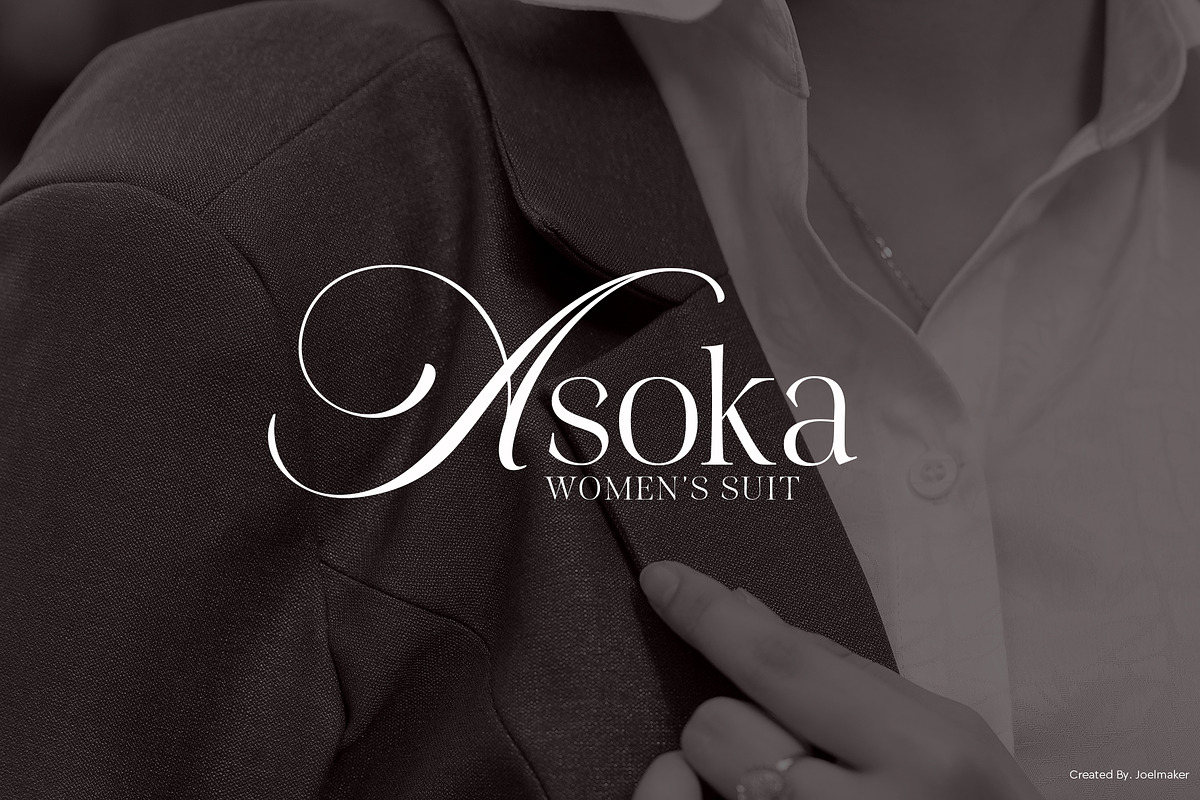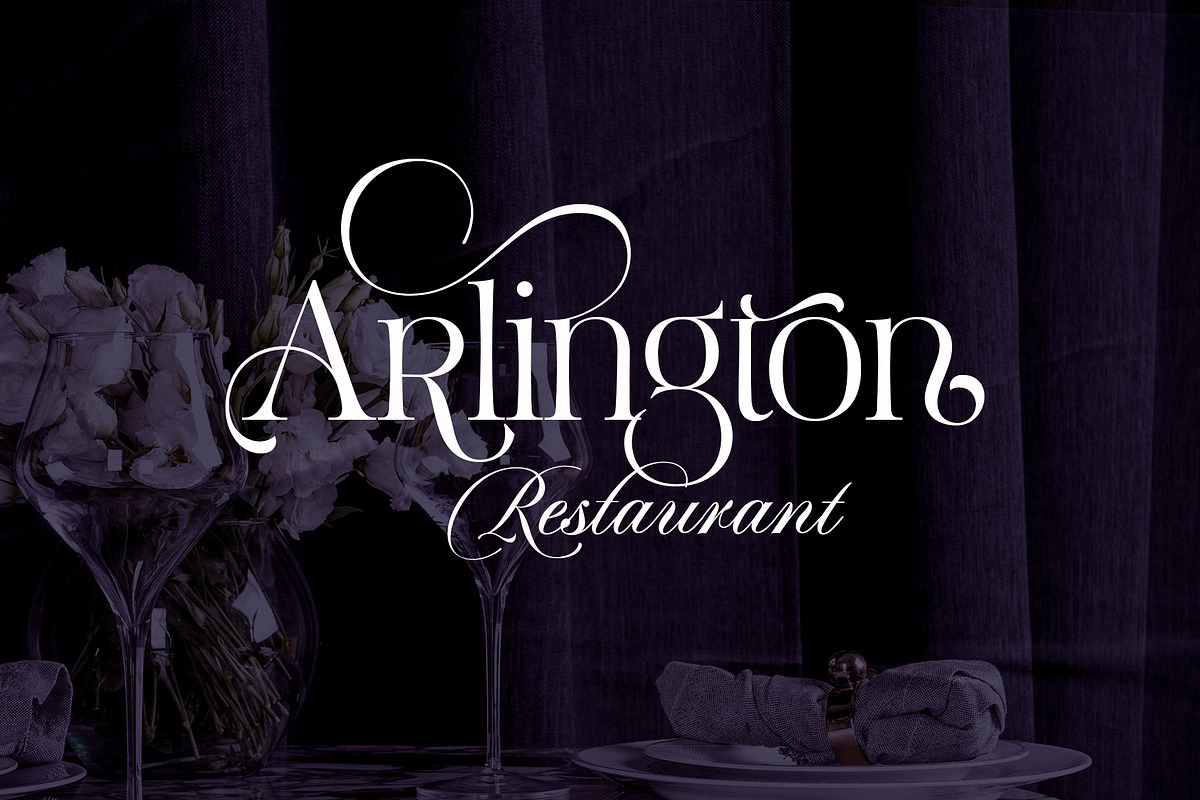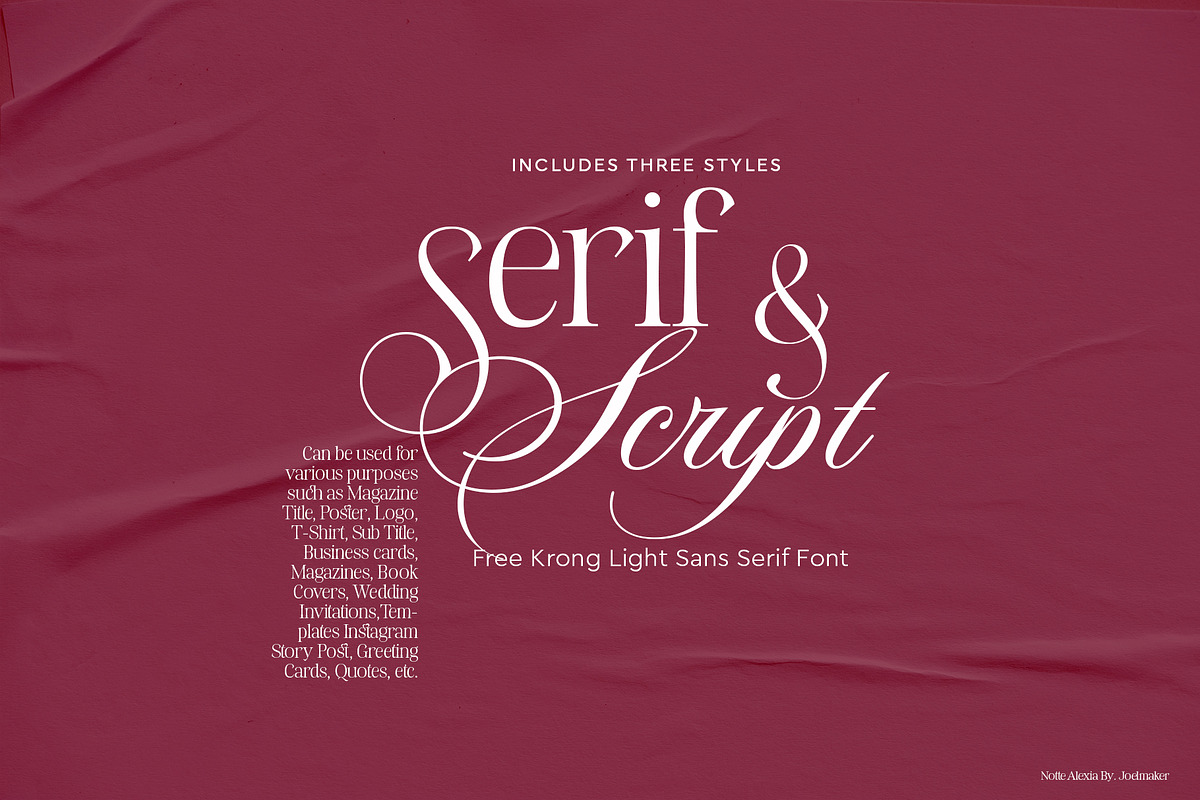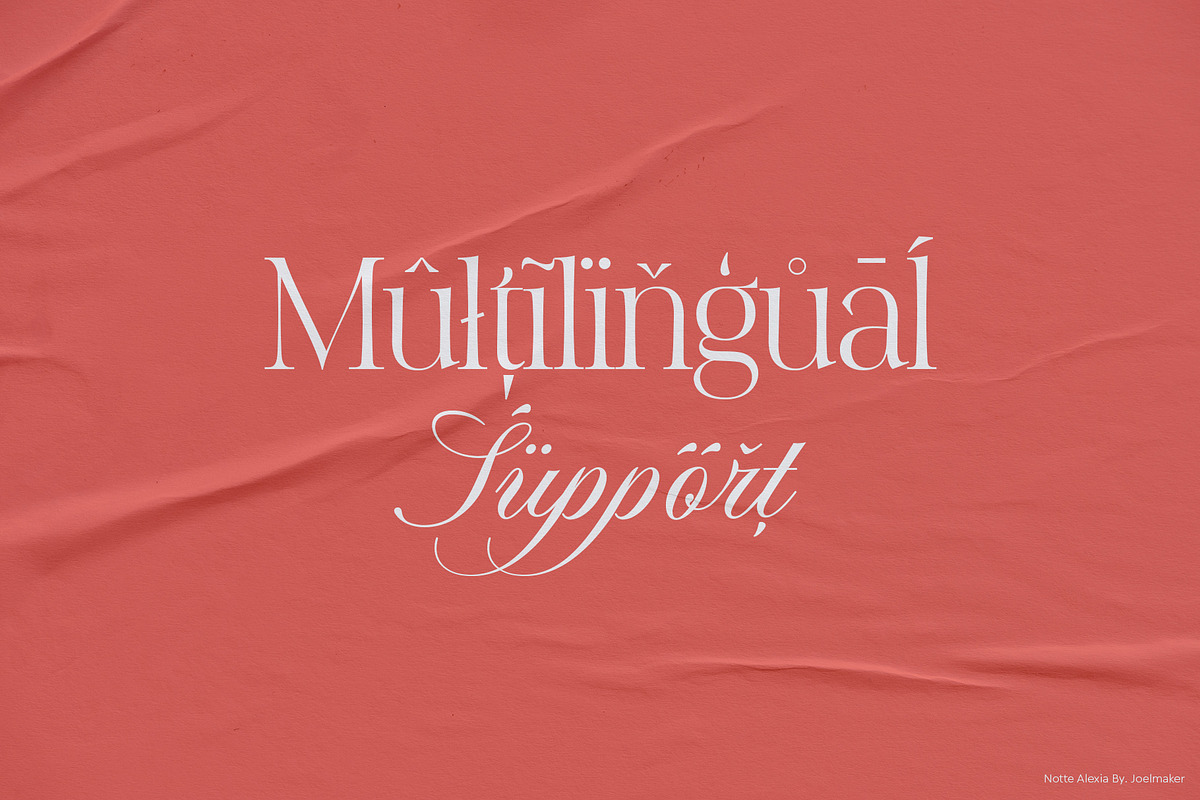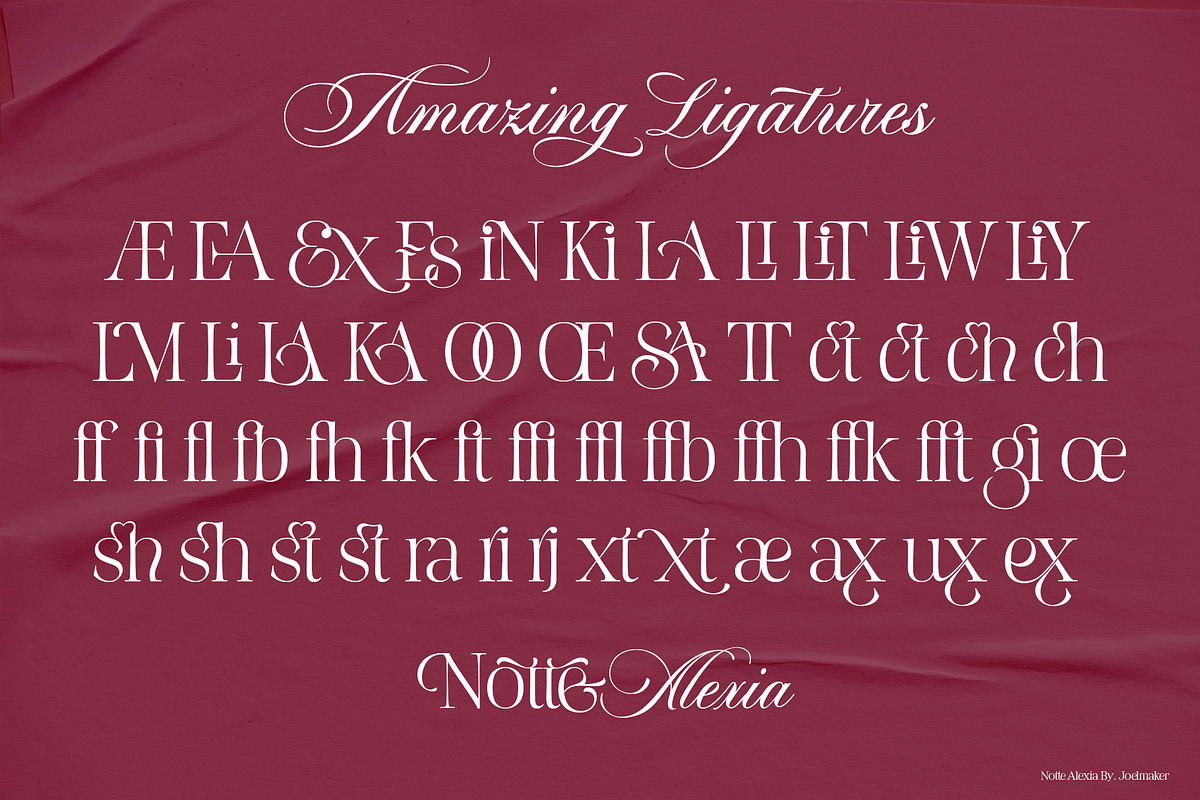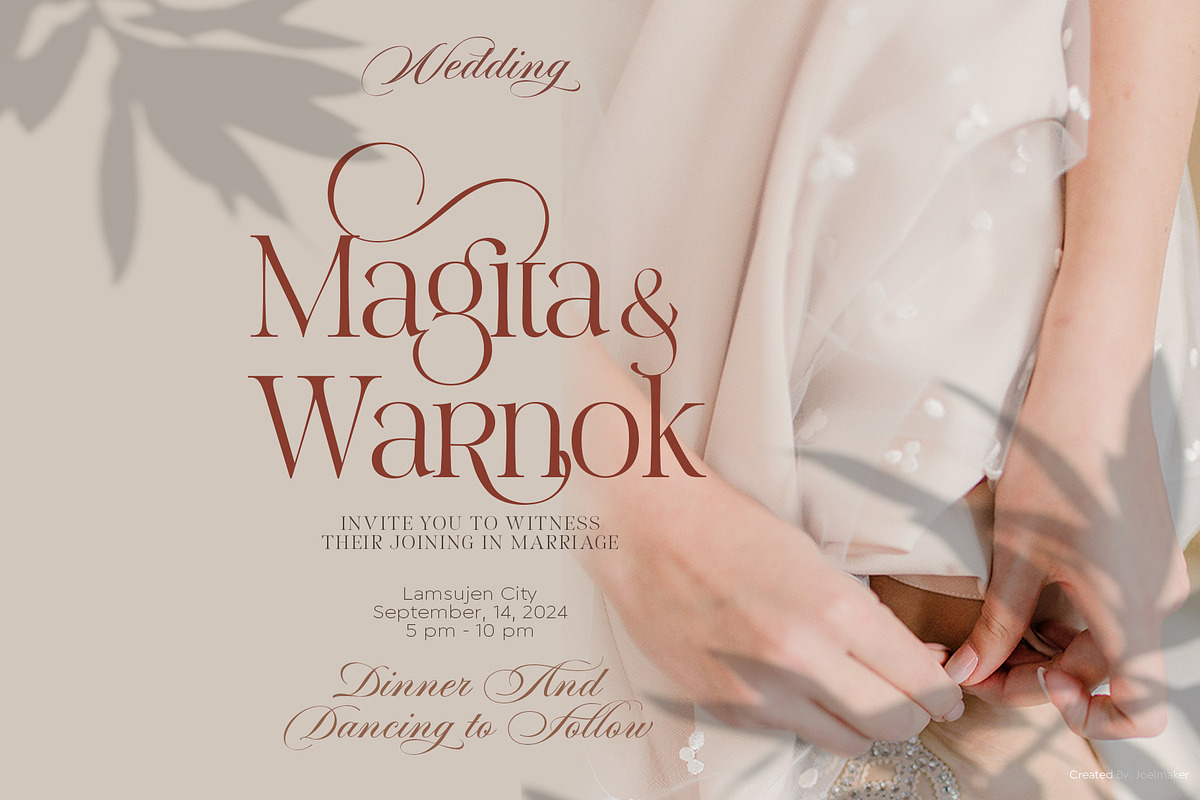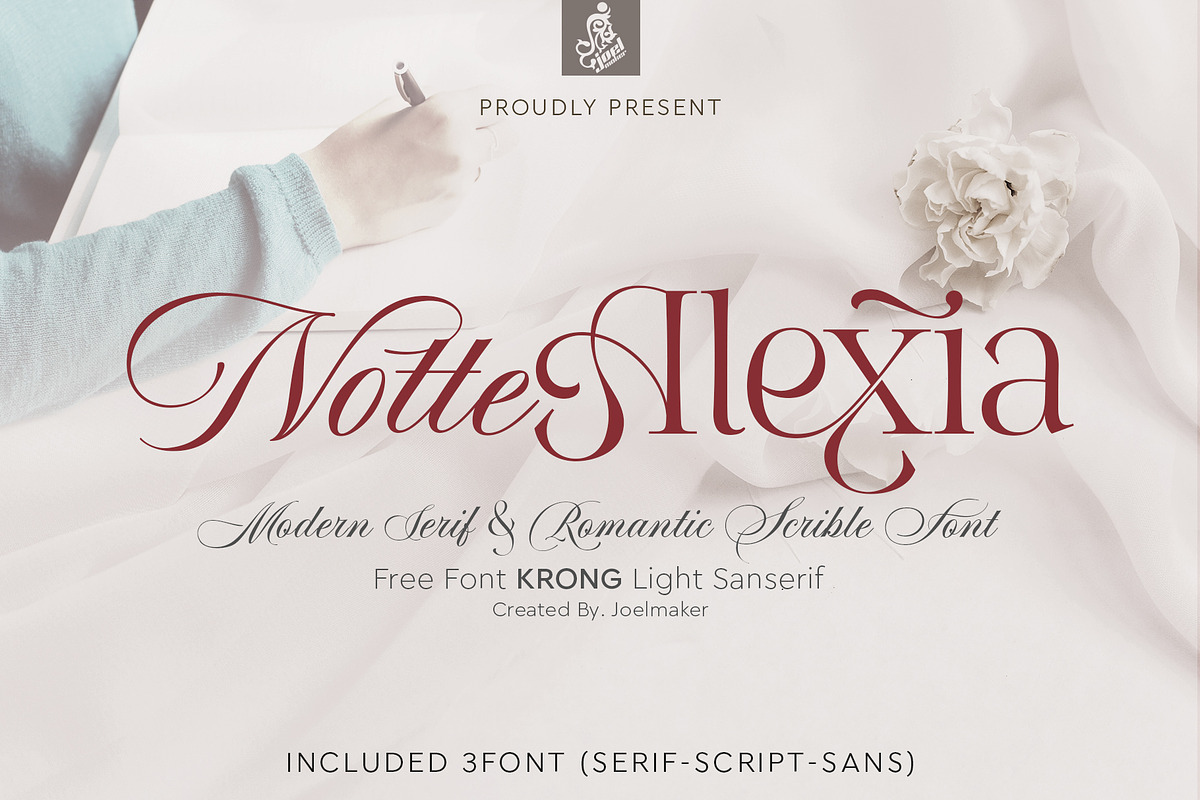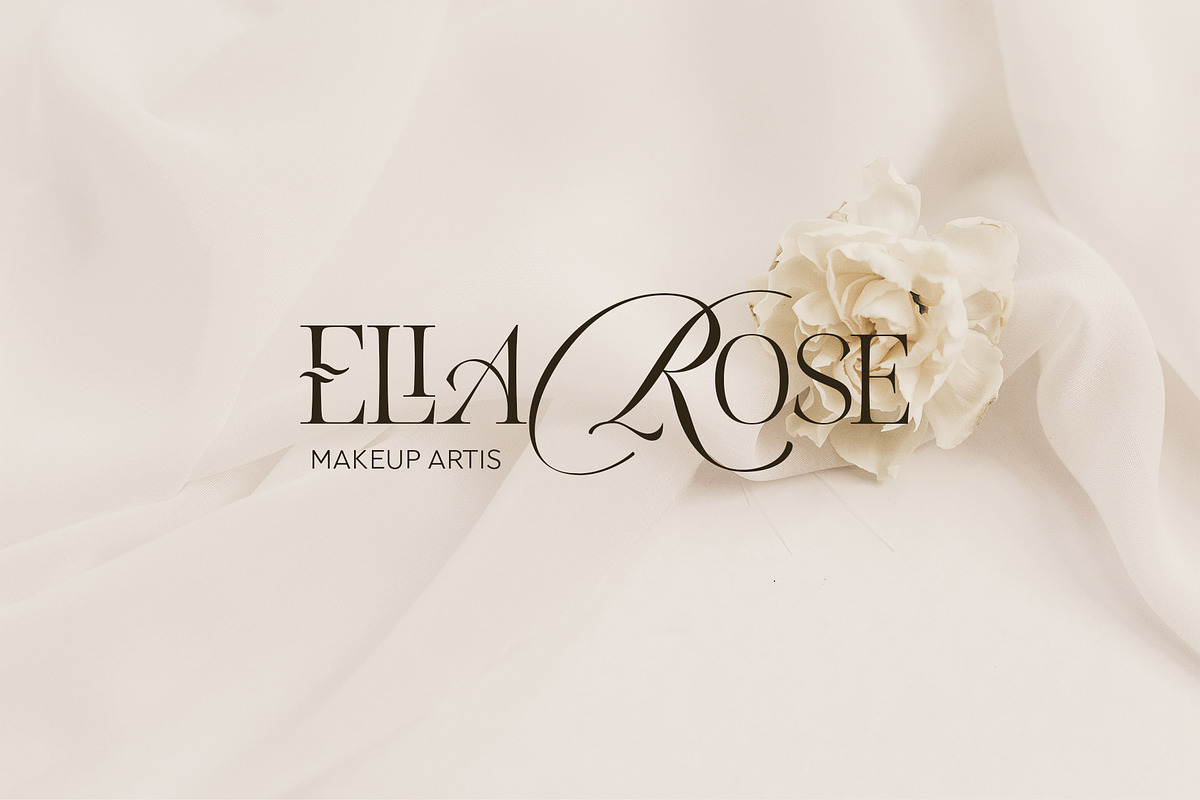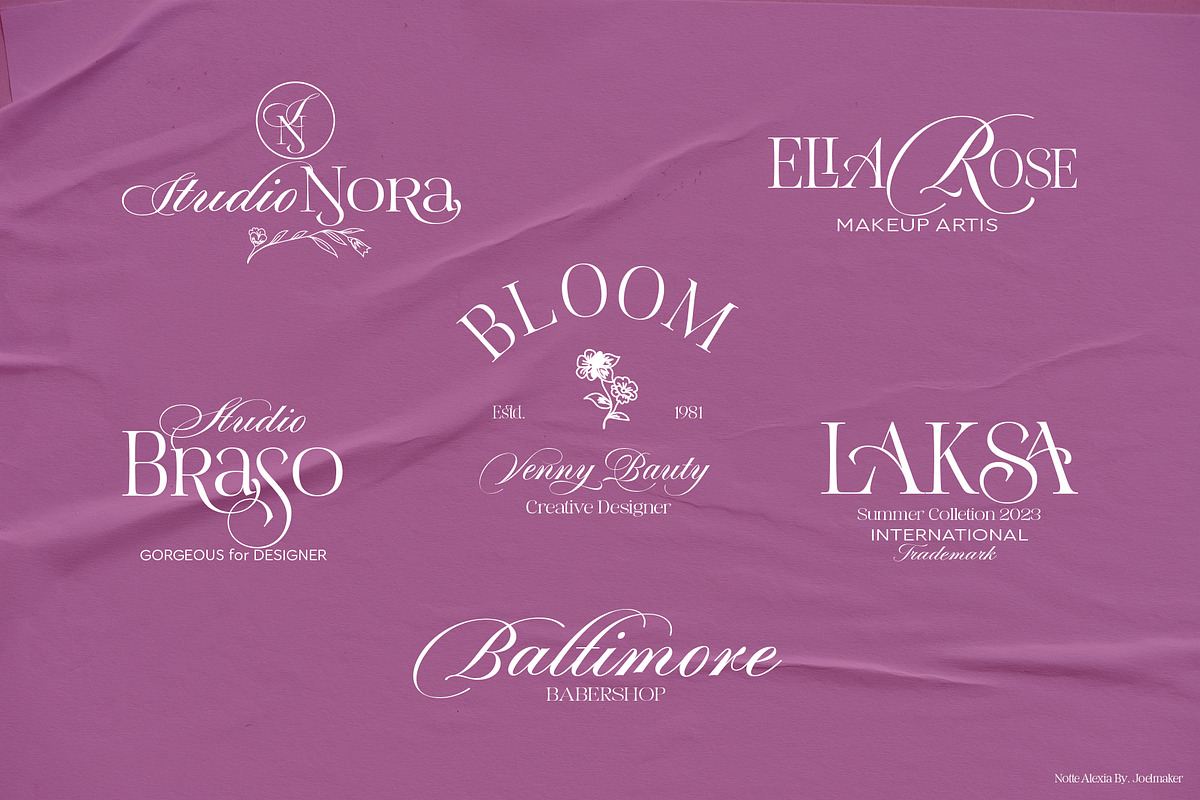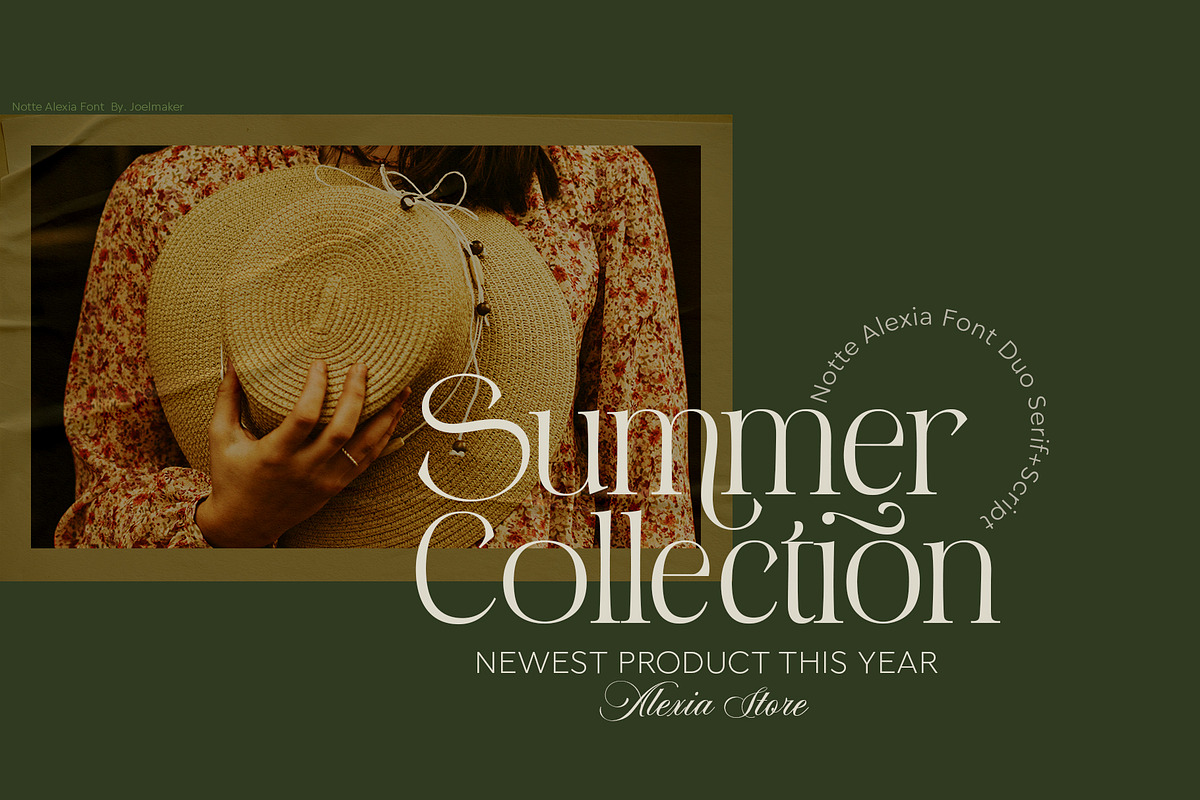
Notte Alexia
Notte Alexia Serif & Script is a pack containing 3 fonts
Notte Alexia Serif & Script an old-fashioned font that has been rewritten in a modern style combined with unique ligatures and beautiful and attractive swirly, making this font even more energetic and paired with a very beautiful Script so that it looks more dynamic.
Note Alexia Serif & Script,can be used for various purposes such as Magazine Title, Poster, Logo, T-Shirt, Sub Title, Business cards, Magazines, Book Covers, Wedding Invitations,Templates Instagram Story Post, Greeting Cards, Quotes, etc.
- Titling Alternates
- Stylistic Set